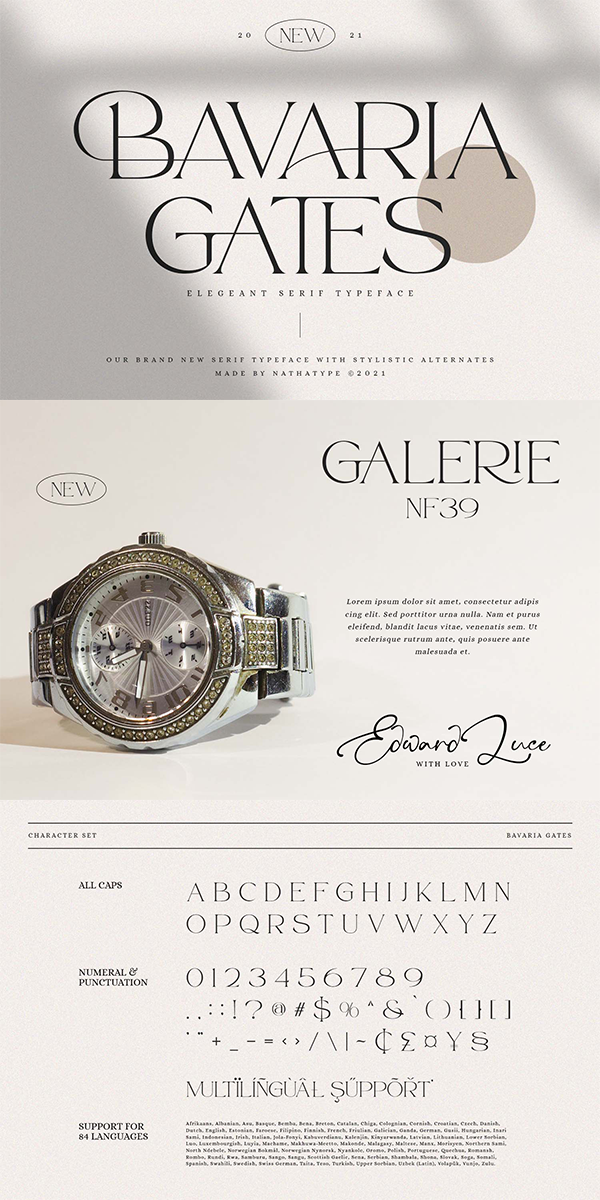
Bavaria Gates Font
About Bavaria Gates
Bavaria Gates is a serif typeface that is made all characters in uppercase. An excellent choice to add the right amount of modern touch. The font is special in that one word can be written in a million different ways.
• Stylistic Set
• Swashes
• Numerals and Punctuation